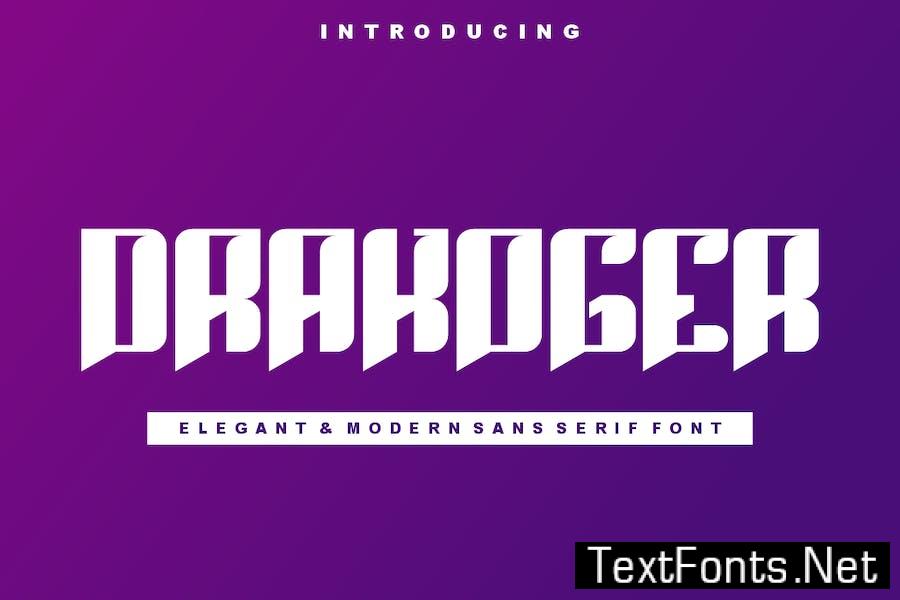
Introducing our new product Drakoger Font Modern Font
Drakoger Font – Modern Font is a bold and authentic display font. The font is suitable for any branding project like logo, t-shirt printing, esport, and many more. outstanding in a wide range of contexts.